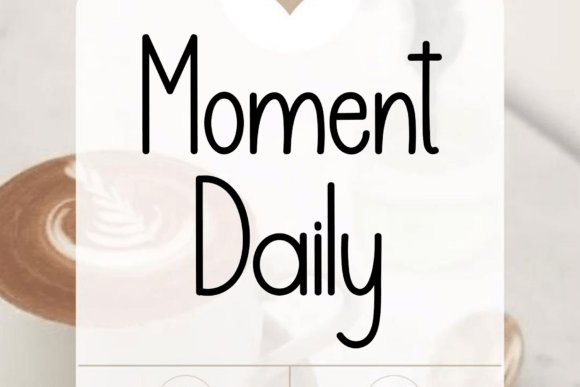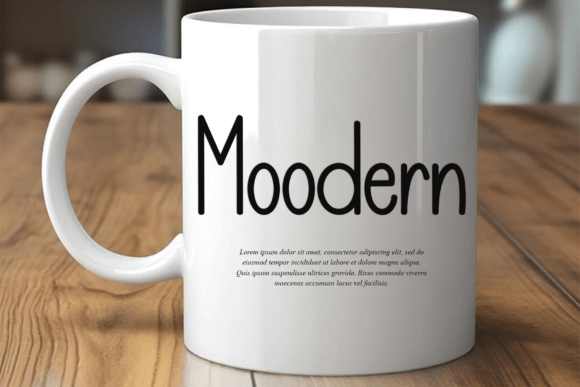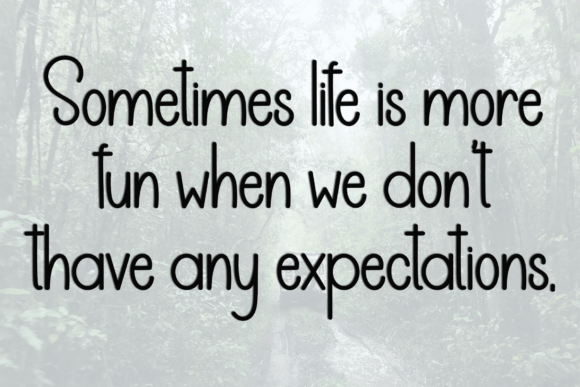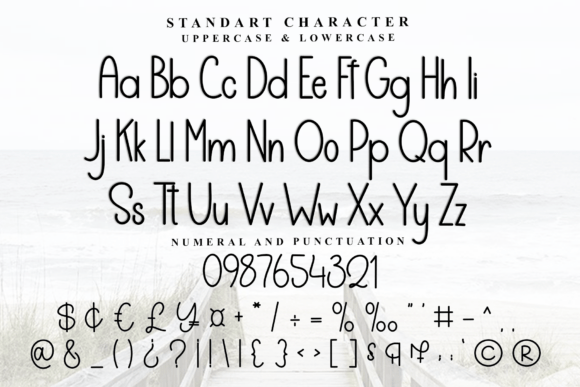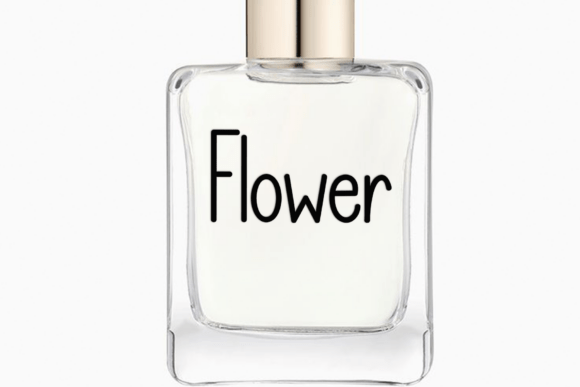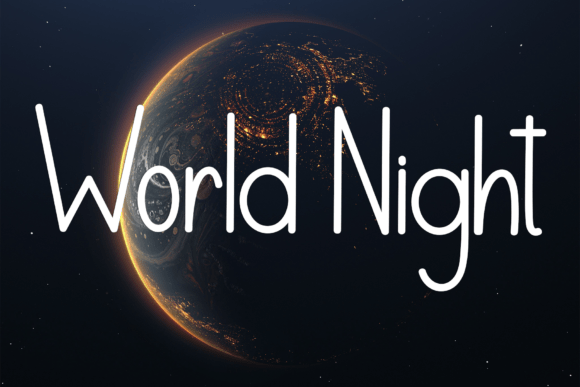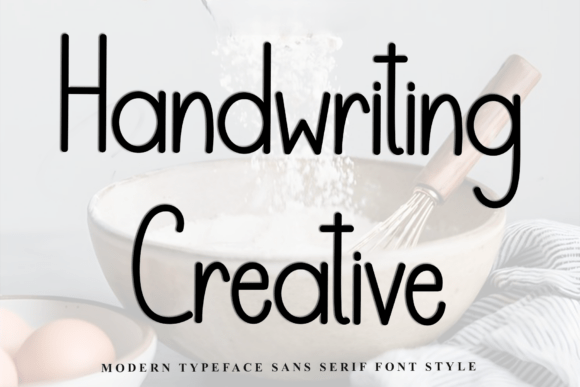
Introducing Handwriting Creative Font: Elevate Your Designs with a Unique Touch
In the world of design, typography plays a crucial role in capturing the essence of a message. A font can make or break the visual appeal of a project, and that’s where the Handwriting Creative Font comes into play. This beautiful, eye-catching font is designed with a soft, unique touch that sets it apart from the rest. Its distinctive strokes give it a special character, making it not only meaningful but also incredibly versatile for future use.
What Makes Handwriting Creative Font Stand Out?
The Handwriting Creative Font boasts a range of features that make it an ideal choice for designers and crafters alike. Some of its key characteristics include:
- Unique Strokes: The font’s distinctive strokes give it a personal touch, making it perfect for projects that require a bit of personality.
- Versatility: With various characters, this font is suitable for a wide range of design projects, from crafts to creative works.
- Natural Font Style: Its natural, handwriting-like style makes it perfect for creating a friendly and approachable tone in your designs.
Whether you’re working on a design project or a craft, the Handwriting Creative Font is the perfect choice. Its unique touch and versatility make it suitable for a wide range of creative works, including:
- Logo Design: Create a memorable logo that stands out from the crowd with this distinctive font.
- Brochures and Flyers: Add a personal touch to your marketing materials with this eye-catching font.
- Social Media Graphics: Make your social media posts more engaging with the Handwriting Creative Font.
- Crafts: Use this font to add a personal touch to your handmade crafts, such as cards, invitations, and gift tags.
Enhance Your Designs with Handwriting Creative Font
The Handwriting Creative Font is designed to enhance your designs, making them appealing to a wide range of audiences across different artistic and creative fields. Its natural font style and unique strokes make it perfect for:
- Artistic Projects: Add a touch of personality to your artistic projects, such as paintings, illustrations, and sculptures.
- Fashion Design: Use this font to create stunning fashion designs, including typographic prints and logos.
- Home Decor: Add a personal touch to your home decor projects, such as wall art, signs, and invitations.
Why Choose Handwriting Creative Font?
With so many fonts available, why choose the Handwriting Creative Font? Here are just a few reasons:
- Unique and Eye-Catching: This font is designed to grab attention and make your designs stand out.
- Versatile: Suitable for a wide range of design projects and crafts.
- High-Quality: Professionally designed to ensure high-quality results.
In conclusion, the Handwriting Creative Font is a beautiful and versatile font that’s perfect for designers and crafters looking to add a unique touch to their projects. Its distinctive strokes, natural font style, and compatibility with various applications make it an ideal choice for a wide range of creative works. Try it out today and elevate your designs to the next level!